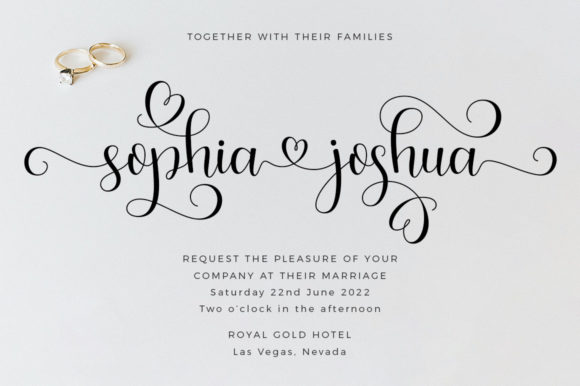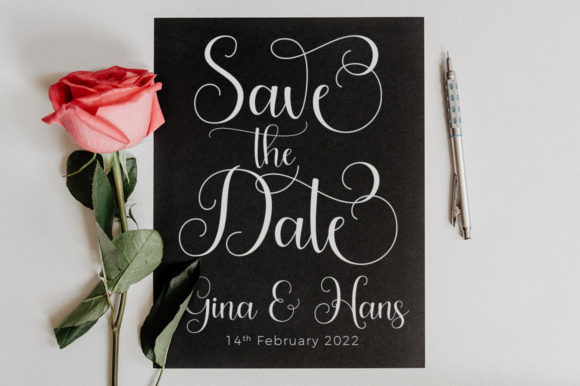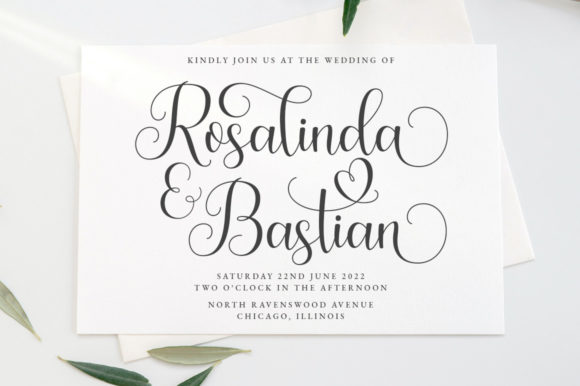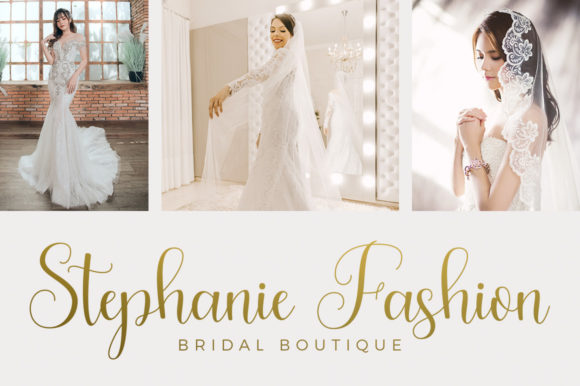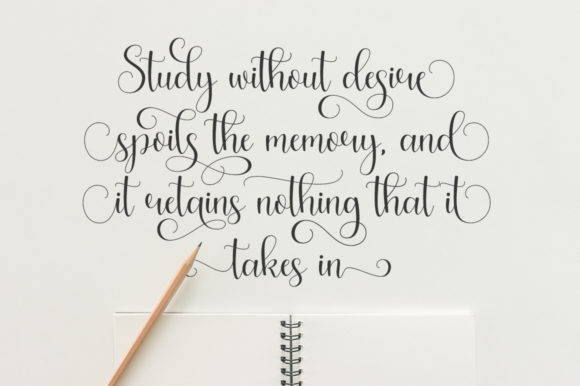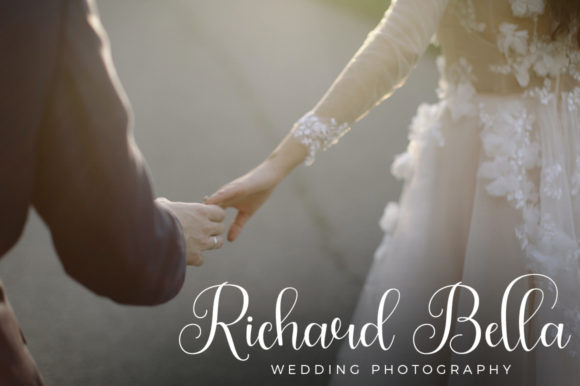
Arabela Script Font: Elevate Your Designs with Elegance and Sophistication
In the world of typography, a well-chosen font can make all the difference in transforming a design from ordinary to extraordinary. For designers and crafters seeking to add a touch of luxury and sophistication to their projects, the Arabela Script Font is an exceptional choice. This stunning script font is designed to bring a level of elegance and refinement that is sure to captivate audiences and set your designs apart.
The Essence of Arabela Script Font
Arabela Script is a stylish and incredibly elegant script font that exudes luxury and refinement. Its flowing lines and intricate details are carefully crafted to add a touch of sophistication to any design project. Whether you’re working on a branding project, packaging design, or digital content, Arabela Script Font is the perfect choice for those who want to make a lasting impression.
Key Features of Arabela Script Font
- PUA Encoding: One of the standout features of Arabela Script Font is its PUA (Private Use Area) encoding. This means that you can easily access all the amazing glyphs and ligatures, making it simple to incorporate into your designs.
- Elegant and Refined: The font’s elegant and refined design makes it perfect for high-end branding, luxury packaging, and sophisticated digital content.
- Versatile: Arabela Script Font is versatile and can be used for a wide range of design projects, from logos and business cards to social media graphics and website headers.
- Easy to Use: With its user-friendly design and PUA encoding, Arabela Script Font is easy to use, even for those who are new to working with script fonts.
Why Choose Arabela Script Font?
There are many script fonts available, but Arabela Script Font stands out for several reasons:
- Unique Design: Arabela Script Font has a unique and distinctive design that sets it apart from other script fonts.
- High-Quality: The font is designed with high-quality and attention to detail, ensuring that it looks great in any design project.
Tips for Using Arabela Script Font
To get the most out of Arabela Script Font, here are a few tips:
- Pair with a Sans Serif Font: Pair Arabela Script Font with a sans serif font to create a beautiful contrast and add visual interest to your design.
- Use for Headings: Use Arabela Script Font for headings and titles to add a touch of elegance and sophistication.
In conclusion, Arabela Script Font is a stylish and elegant script font that is perfect for designers and crafters looking to add a touch of luxury and sophistication to their design projects. With its PUA encoding, elegant design, and versatility, it’s an excellent choice for a wide range of applications. Whether you’re working on a branding project, packaging design, or digital content, Arabela Script Font is sure to elevate your designs and make a lasting impression.